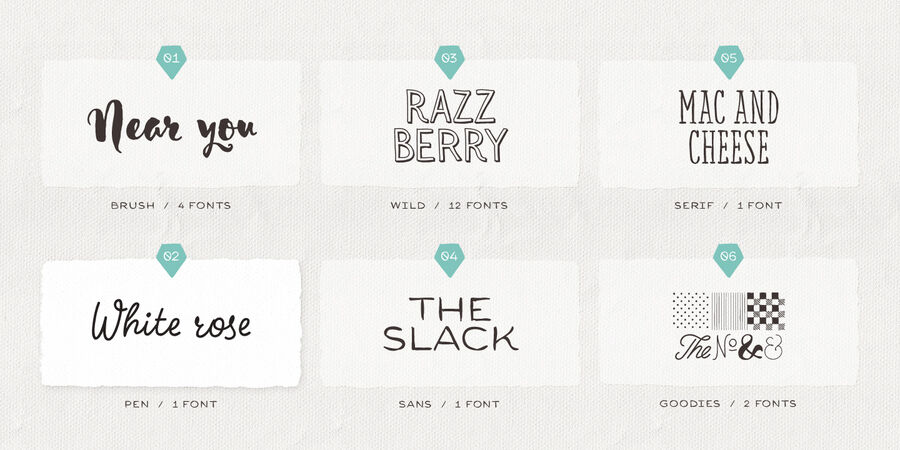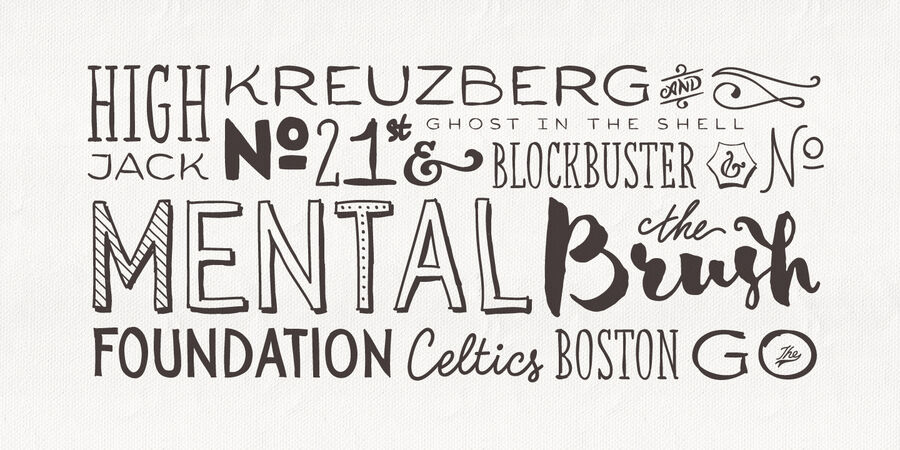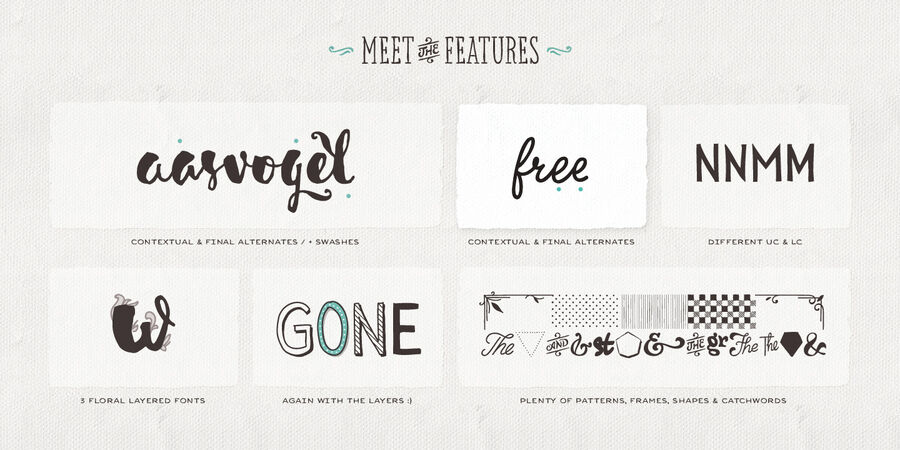
Sensa font is a handmade typeface family consisting of 21 fonts. Among other script fonts, this one is divided into 6 subfamilies, each contributing to its wide range of visual power – Sensa Brush, Sensa Pen, Sensa Wild, Sensa Sans, Sensa Serif and Sensa Goodies. Only your “brush” is the limit. Pick any of the Sensa fonts as a leading and the rest of the fonts can accompany it with ease. To work together in all possible combinations, all fonts in this package are created with that simple idea in mind. The Sensa font is applicable for almost every design project – from advertising, packaging, editorial and branding, to web and screen projects. For beauty and tender sensation or for more male and strong communication—you have a wide selection. Cyrillic is supported. 2 Sensa fonts available FREE. OpenType Features: Stylistic Alternates, Contextual alternates, Swashes, 1–3 Localised Forms. The typeface was designed by Fontfabric team in 2015-2018.
Associations for font family Sensa PenTypeface personality and character:
festive, polite, beautiful, glad, happy, nice, artistic, cute, friendly, craft brewed, delicious, kind, Soft, man-made, manual, home, cozy, confidence, green, natural, warm, dynamic, agile, lamp, appetizing, flexible, alive, original, affable, fresh, distinctive, round, peppy, juicy, ripe, mischievous, floral, expressive, pleasant, summer, informal, emotional, sensual, picturesque, plastic, rhythmic, roundish, high-quality, sentimental, honest, healthy, playful, funny, smooth, curly, spring, handicraft, family, eco-friendly, cool, rope, farmer, pretty, Artisanal, orderly, domestic
flowers, gifts, cafe, restaurant, celebration, bakery, Spring, kitchen, selfie, sea, beauty, diary, ASMR, Hygge, children's book, handmade, food, recreation, shop, nature, juice, interior, animation, Cartoon, smoothie, Instagram, graphics, illustration, house, bedroom, dessert, entertainment, camp, school, notebook, toy, game, country house, pupil, schoolboy, schoolgirl, morning, dawn Typeface exhibits stylistic traits: